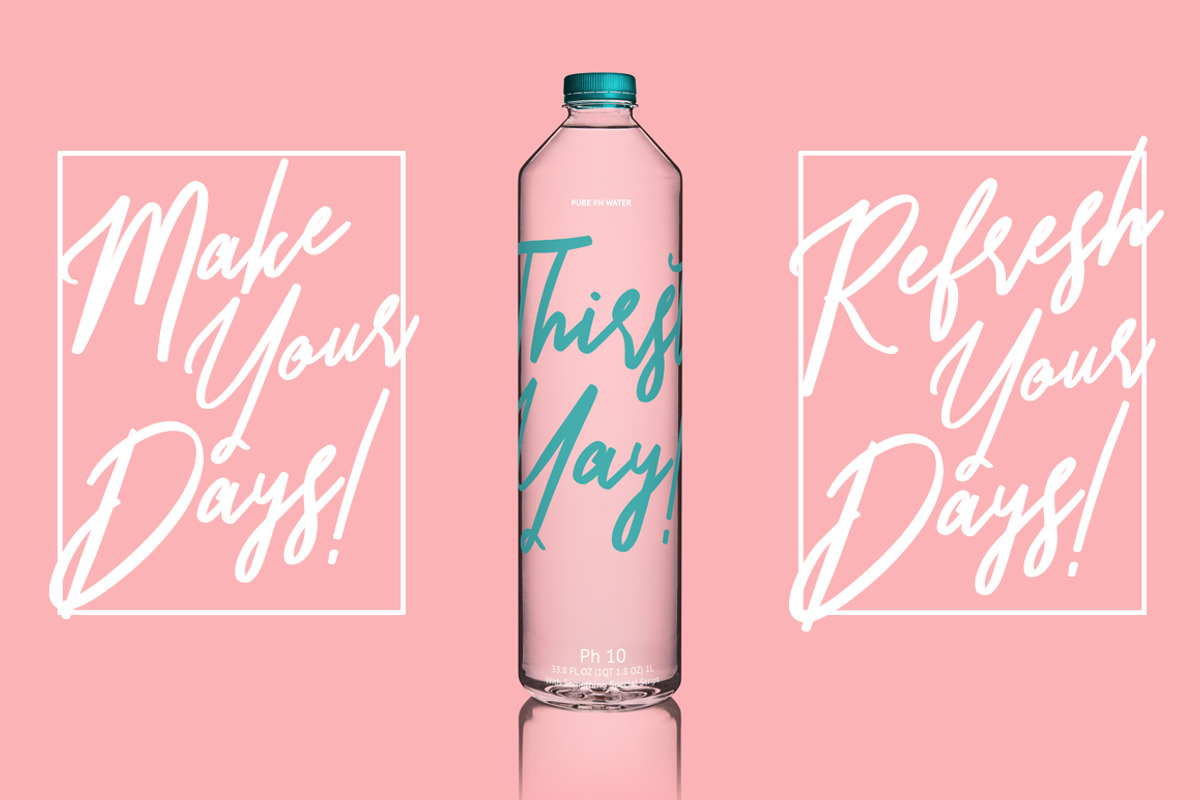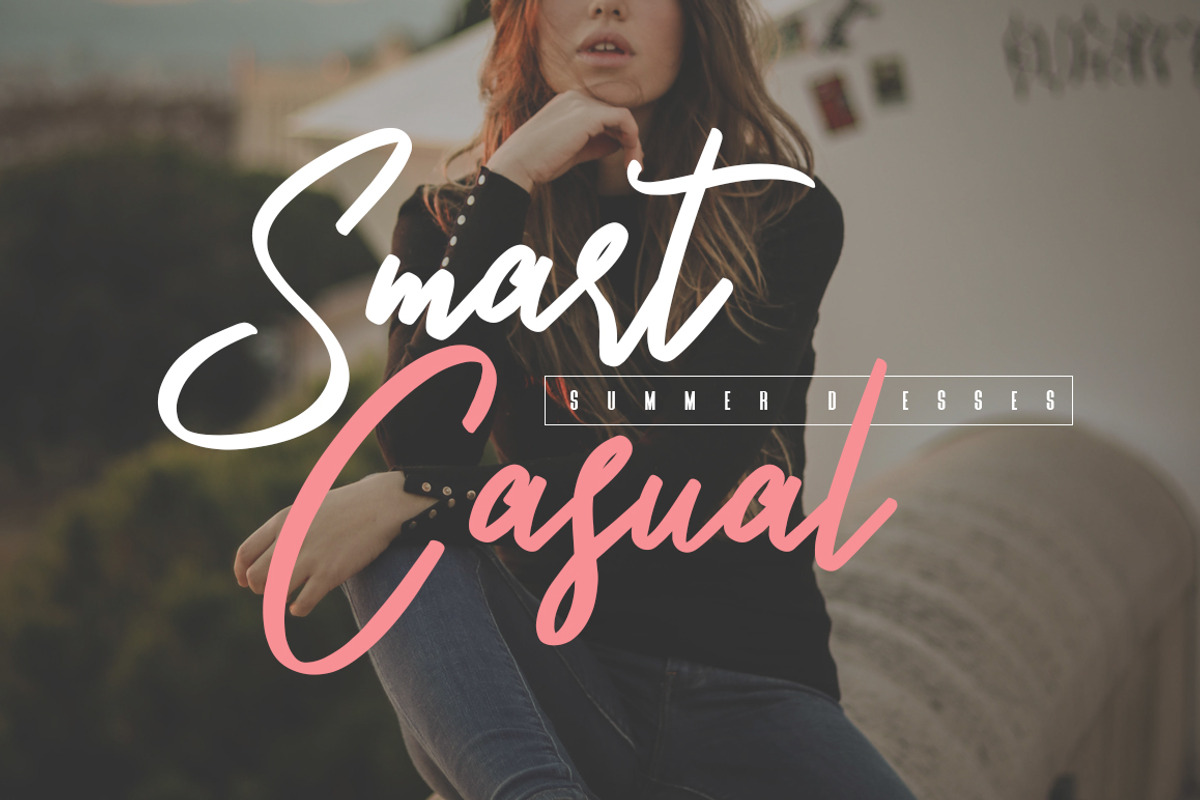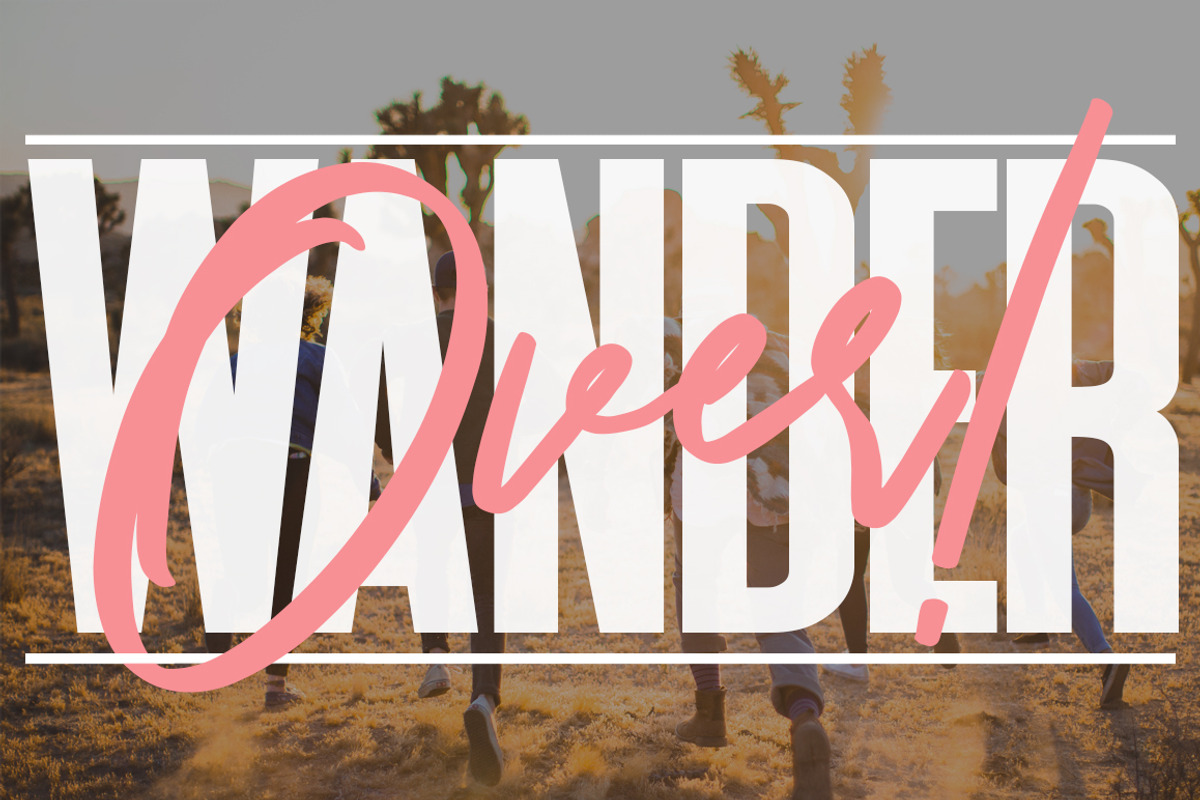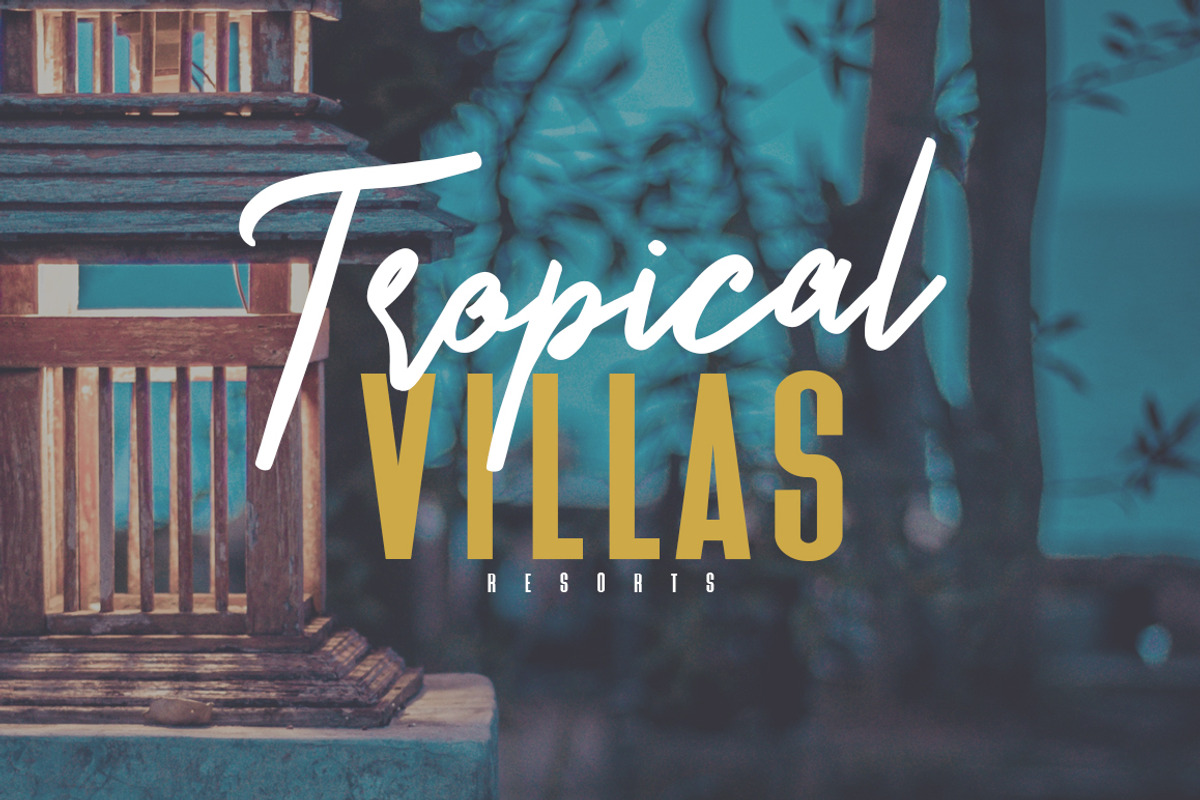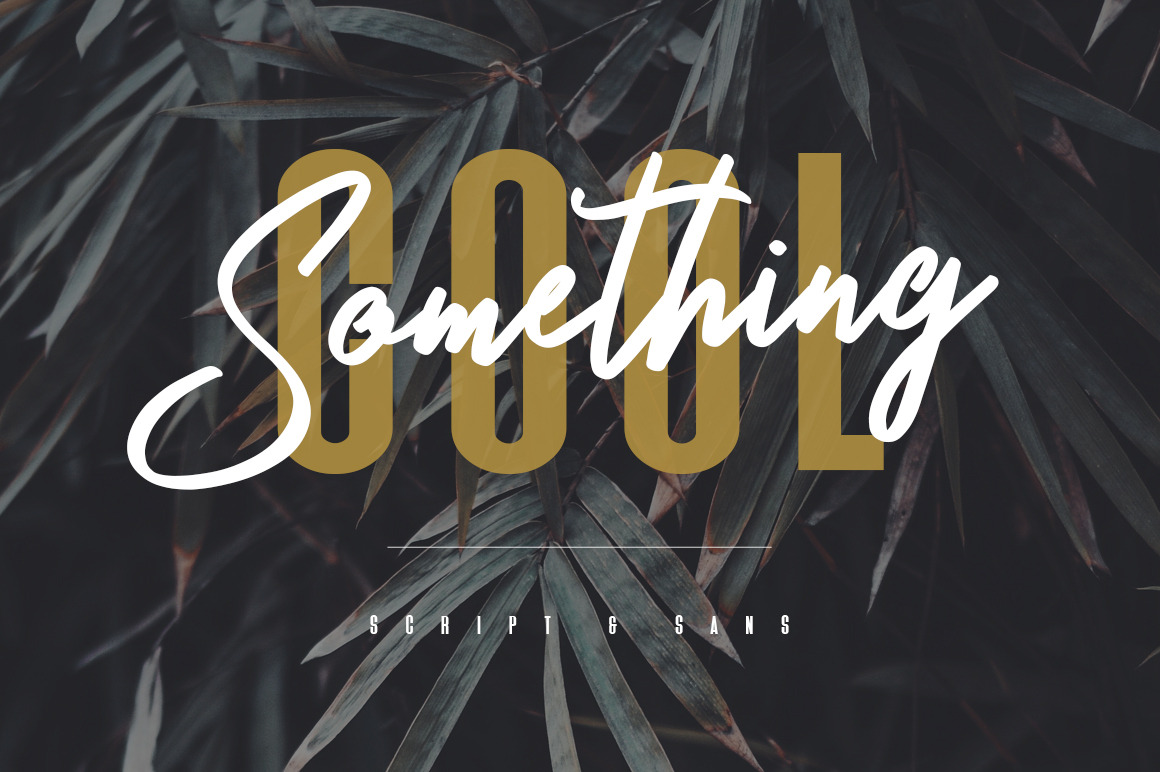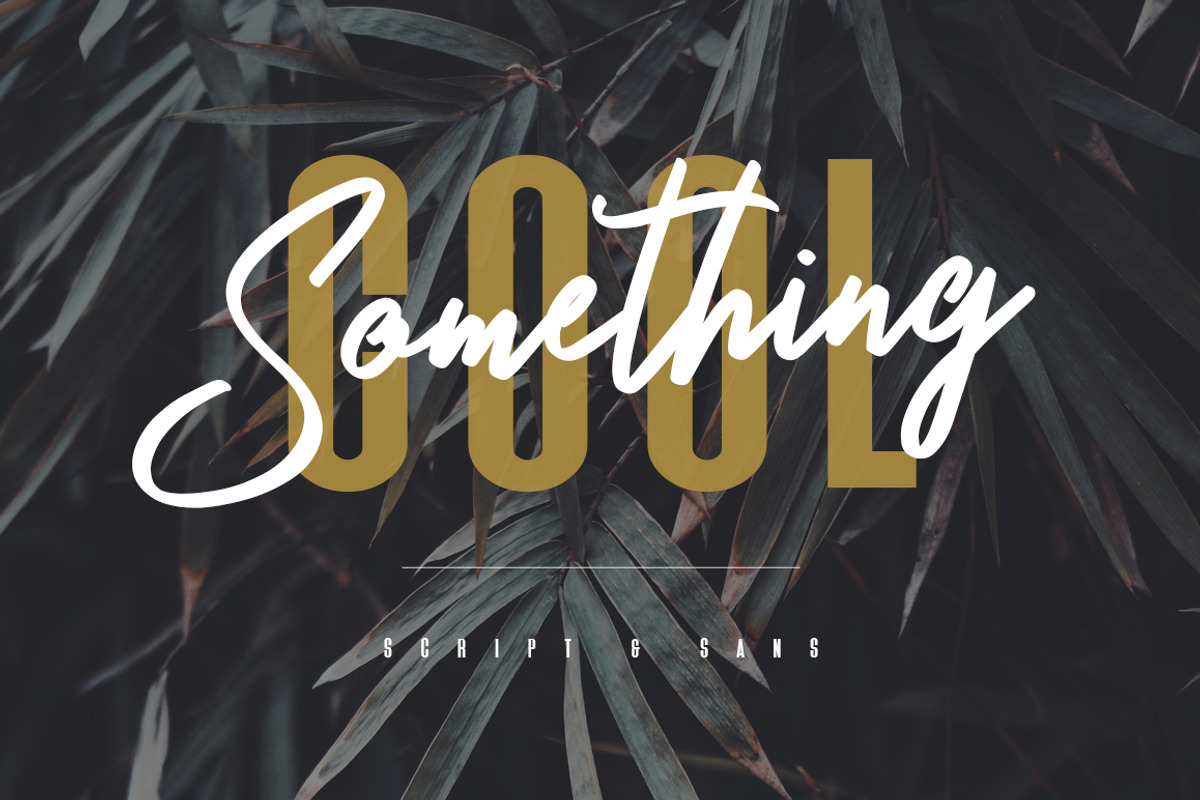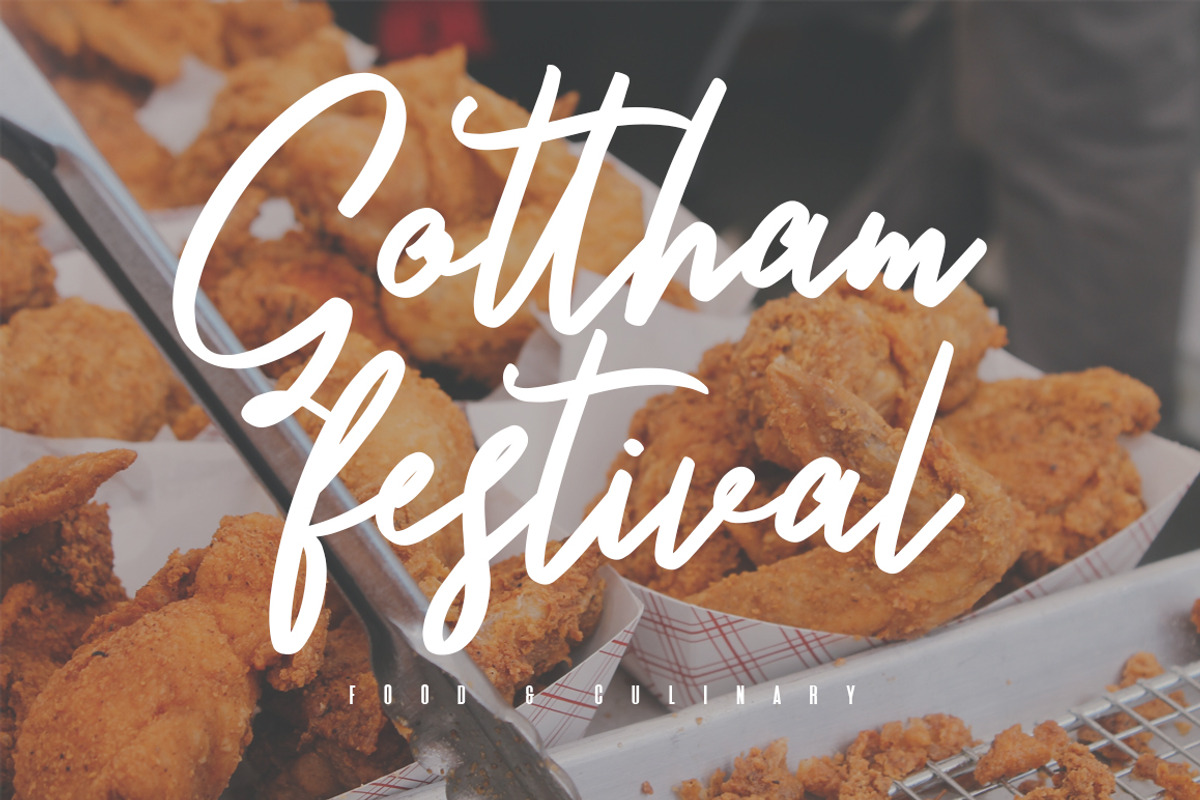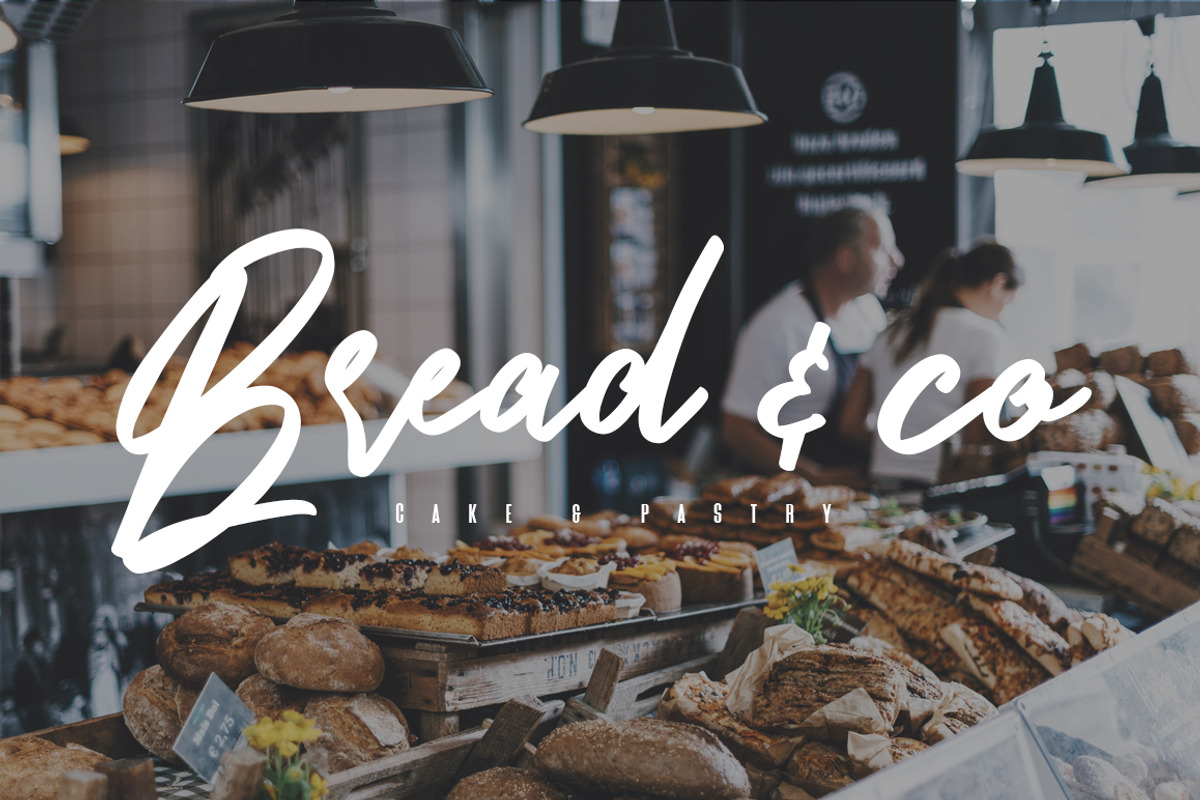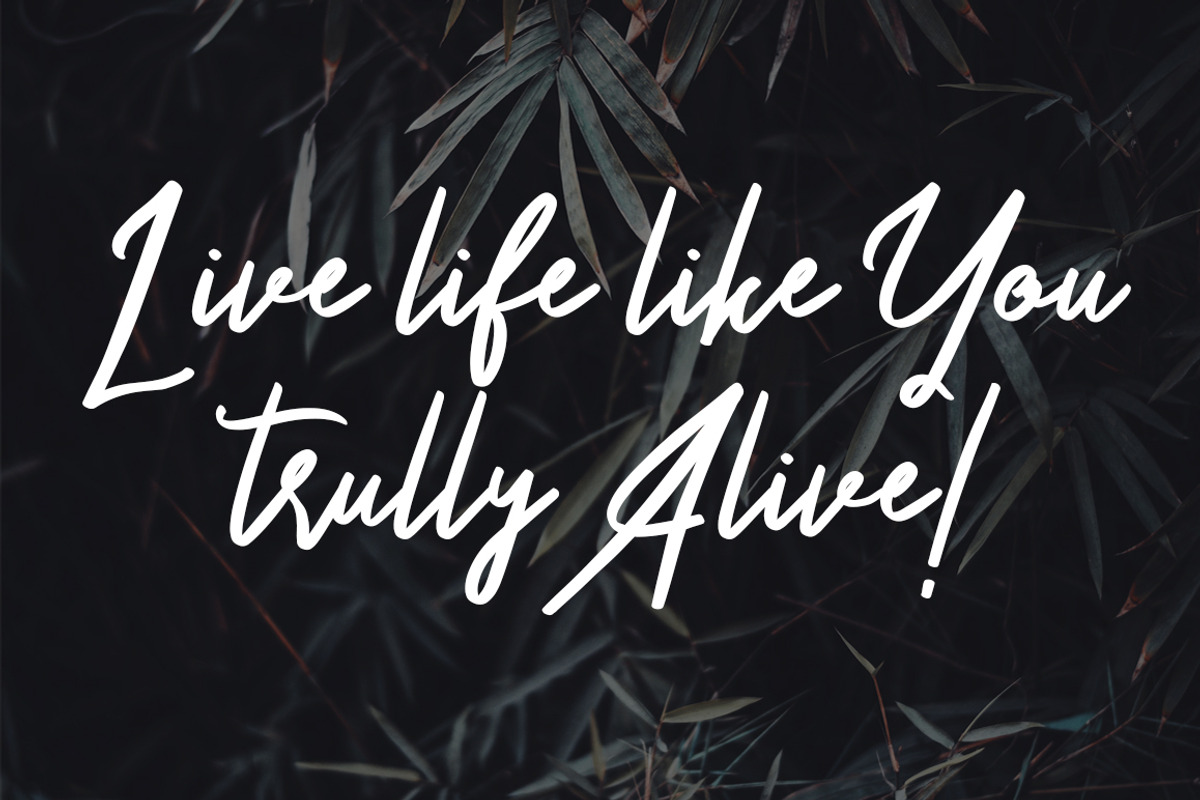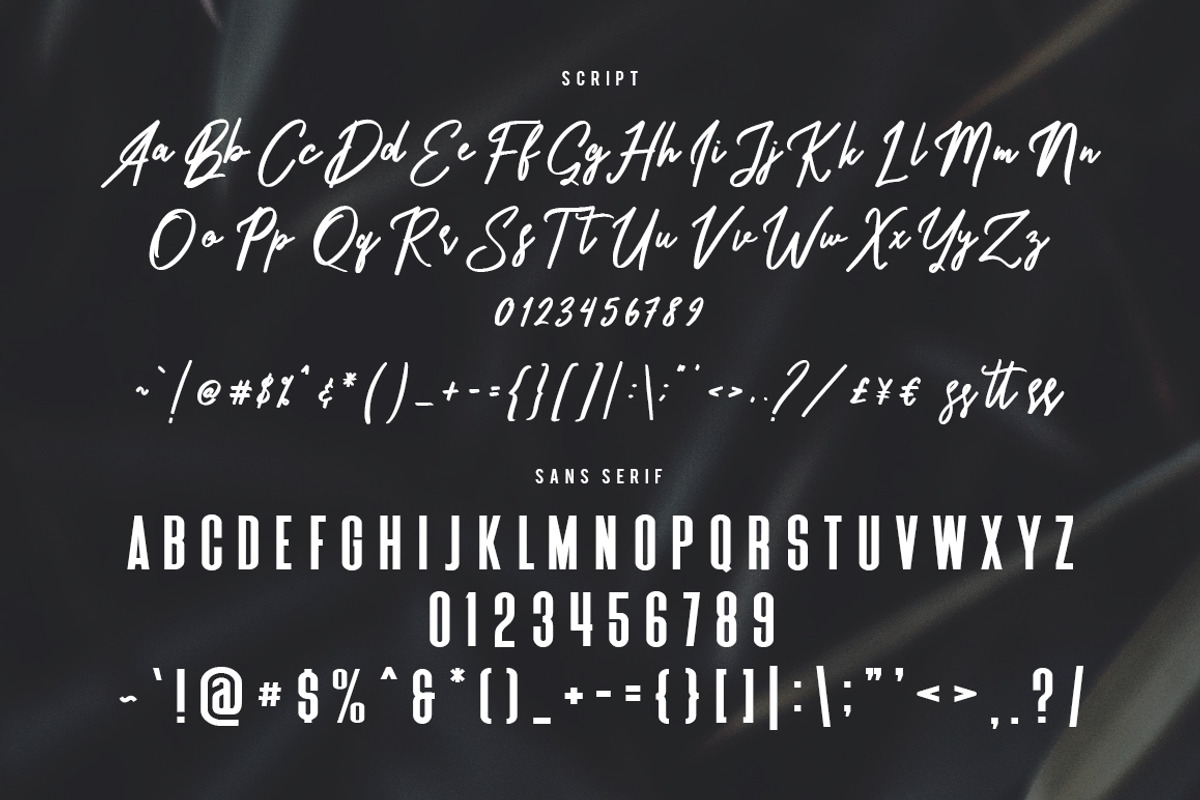
Something Cool – Font Duo Free Sans
Give your designs an authentic brush handcrafted feel. “Something Cool” is perfectly suited to signature, stationery, logo, typography quotes, magazine or book cover, website header, clothing, branding, packaging design and more.